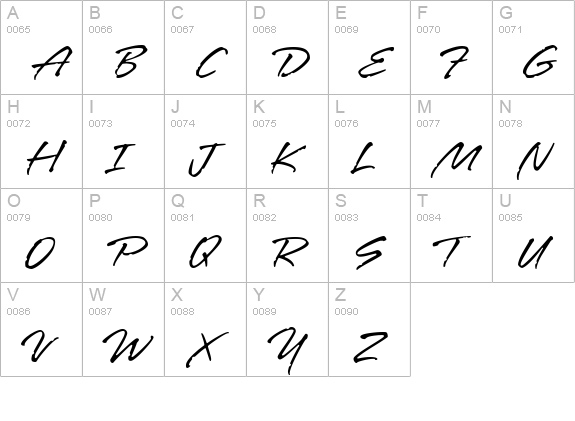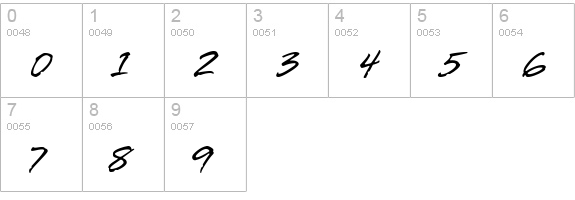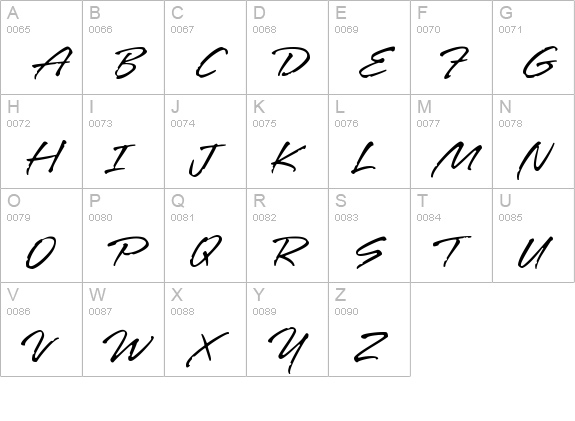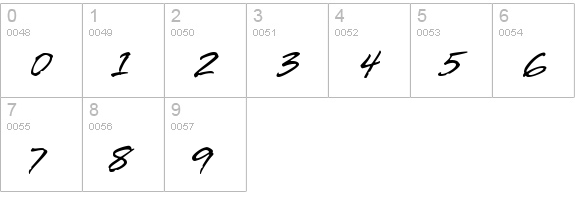
LamboHmk Font Details
LamboHmk font is a stylish and modern typeface that adds a touch of sophistication to any design project. With its bold and sleek letterforms, this font is perfect for headlines, logos, and branding materials. Its unique and distinctive character will make your designs stand out from the crowd. But what makes LamboHmk font even more appealing is that it is available for free! Yes, you heard it right. This amazing font can be downloaded freely at FontsMarket.com, one of the most trusted sources for high-quality fonts. Whether you are a professional designer or just someone looking to add a little flair to their personal projects, LamboHmk font is the perfect choice. With its wide range of weights and styles, LamboHmk font offers endless possibilities for creative expression. From thin and elegant to bold and impactful, this font has it all. The clean lines and smooth curves of each letter create a harmonious balance that is pleasing to the eye. Not only is LamboHmk font visually appealing, but it is also highly legible. Its clear and well-defined letterforms ensure that your message is conveyed with clarity and precision. Whether you are designing a poster, a website, or a social media graphic, LamboHmk font will make sure that your words are easily readable. So why wait? Download LamboHmk font today and unleash your creativity. Whether you're designing a sleek corporate identity or adding a touch of elegance to your personal projects, this font is sure to impress. Remember, it's free and readily available at FontsMarket.com, so there's no reason not to give it a try. Take your designs to the next level with LamboHmk font and make a lasting impression.